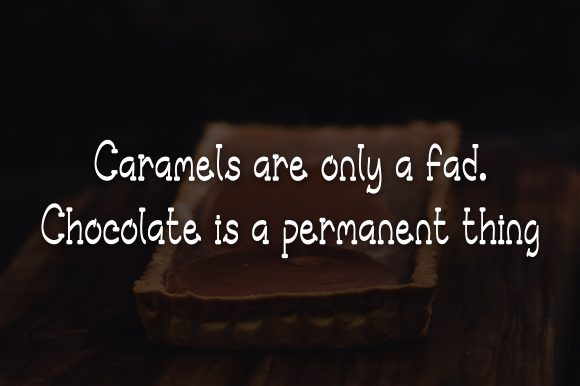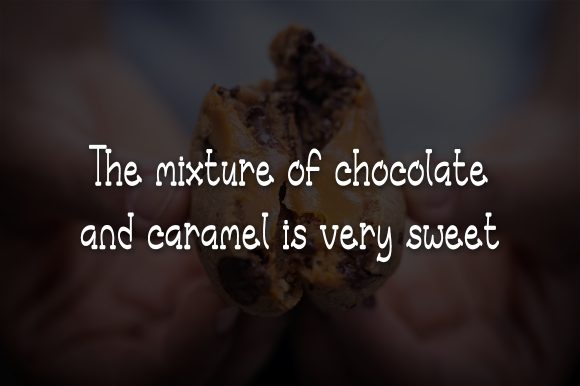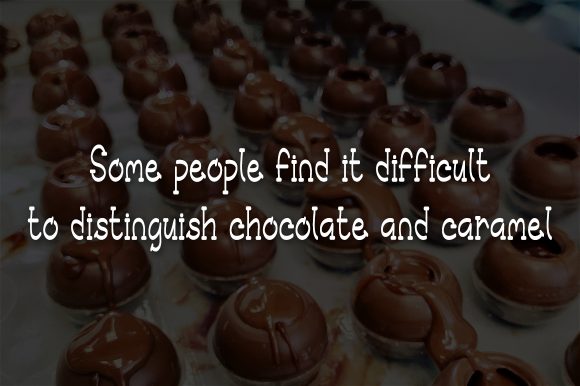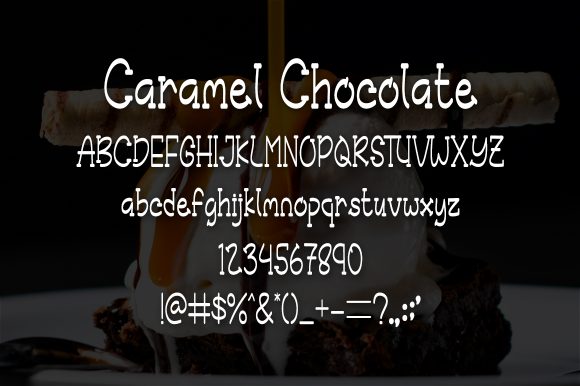
The Sweet Spot of Design: Introducing Caramel Chocolate Font
You know that moment when a single font can make or break your design? The one where you’re pouring your heart and soul into a project, and then, just like magic, the right font brings it all together? That’s exactly what happened to me when I discovered the Caramel Chocolate Font. Its quirky charm and playful vibe instantly captured my attention, and I knew I had to share it with fellow designers.
| 👤 Author | rangkaiaksara |
Caramel Chocolate Font is a delightful display font designed to add a touch of whimsy to any project. Whether you’re creating a logo, a social media post, or a blog header, this font is sure to elevate your design game. Its versatility and unique character make it an invaluable asset to any designer’s library, and I’m excited to share its potential with you.
Caramel Chocolate Font Key Features
- Font Family: Caramel Chocolate Font is a unique, handwritten font that combines elements of cursive and script fonts.
- Character Set: Includes a wide range of characters, including uppercase and lowercase letters, numbers, and punctuation marks.
- Unique Characteristics: Features a distinctive, hand-drawn style with subtle texture and imperfections, giving it a warm and inviting feel.
Caramel Chocolate Font Review
First impressions are important, and the Caramel Chocolate Font definitely makes a statement. I love the ✨ whimsical, playful feel it brings to any design project. The font’s unique blend of modern and vintage elements makes it perfect for adding a touch of sophistication to your branding or marketing materials.
Some of the standout features of the Caramel Chocolate Font include:
- ✨ Its versatility in use – from headings to body text
- ✨ The ease of readability, even at smaller font sizes
- ✨ The ability to add a touch of elegance to any design
However, I do have a few ⚠️ concerns:
- ⚠️ The font may be too ornate for certain designs, potentially overwhelming the overall aesthetic
- ⚠️ Some characters may not be easily legible at very small font sizes
Overall, I’m impressed with the Caramel Chocolate Font, but it’s essential to use it judiciously. When paired with the right design elements, it can truly elevate your project. However, be cautious not to overdo it, as the font’s unique features can quickly become overwhelming.
Use the Caramel Chocolate font for:
– Food and beverage branding
– Packaging design
– Restaurant and cafe menus
– To add a luxurious and high-end feel to your design
The optimal line spacing for the Caramel Chocolate Font is between 1.2 to 1.5 times the font size. For example, for a 14pt font size, use a line spacing of 16.8pt to 21pt. This range ensures that the text is easy to read and visually appealing.